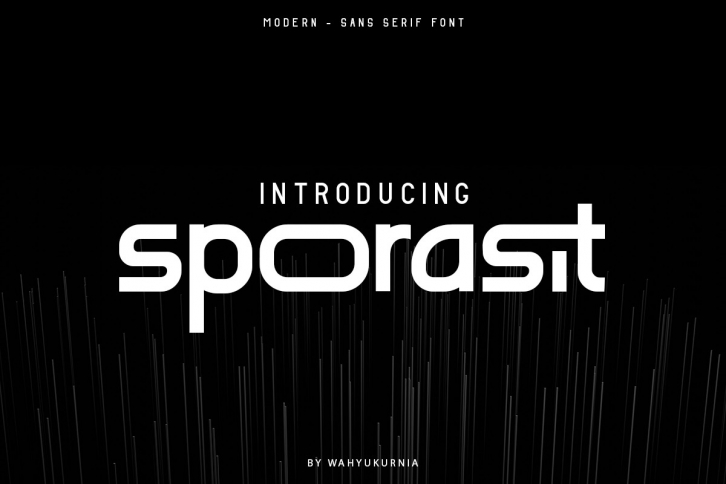
Sporasit is a cool, casual and unique display font. You can use it for various projects, such as blog posts, logos, branding, ads, invitations, greeting cards, planners, photo albums, decorations, and much more